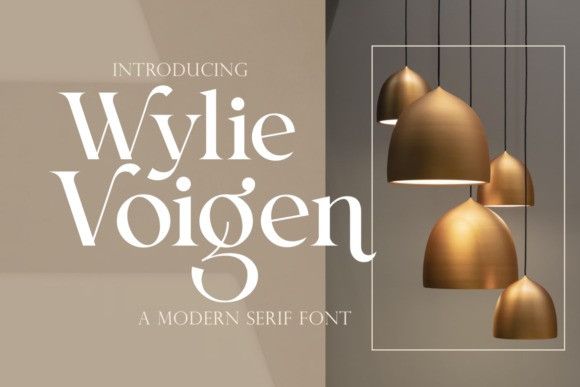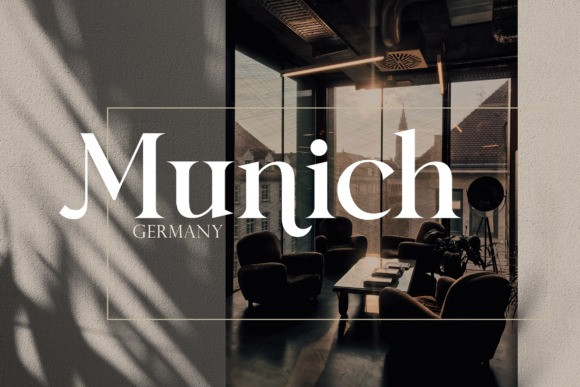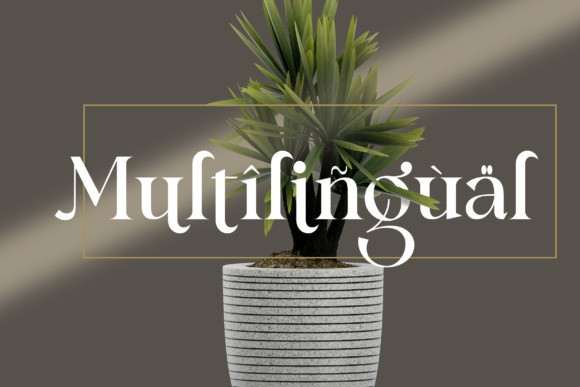
Wylie Voigen Font
Wylie Voigen is a distinct and elegant serif font. It is PUA encoded which means you can access all of the glyphs and swashes with ease!